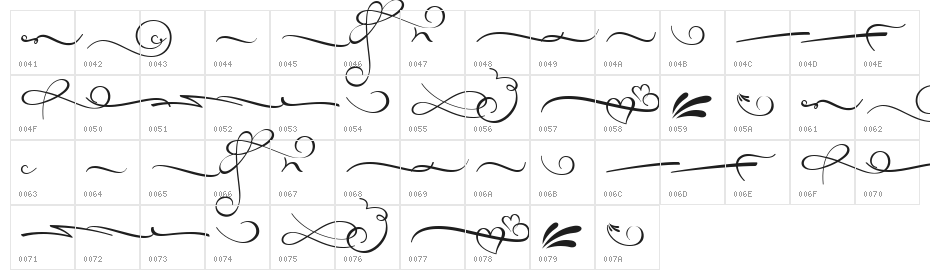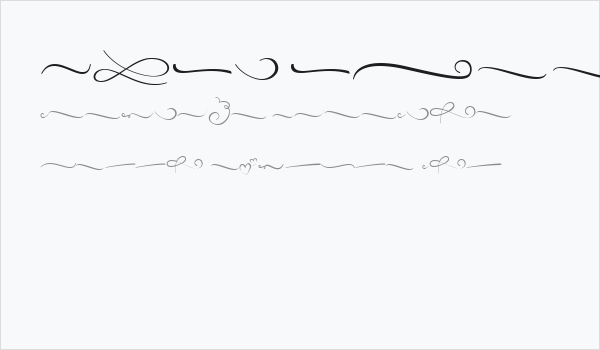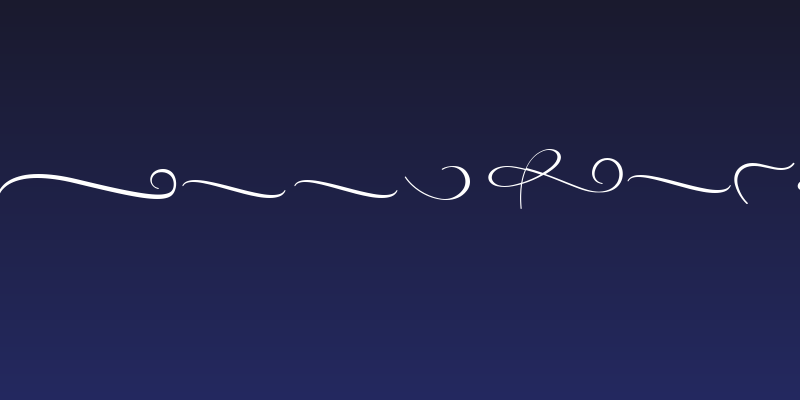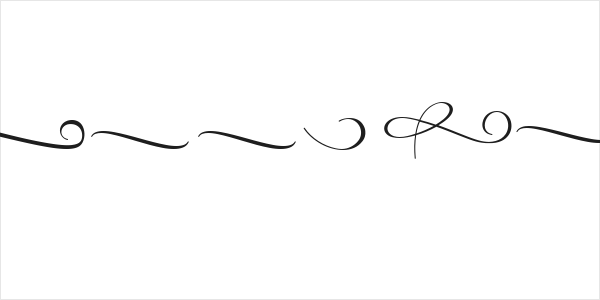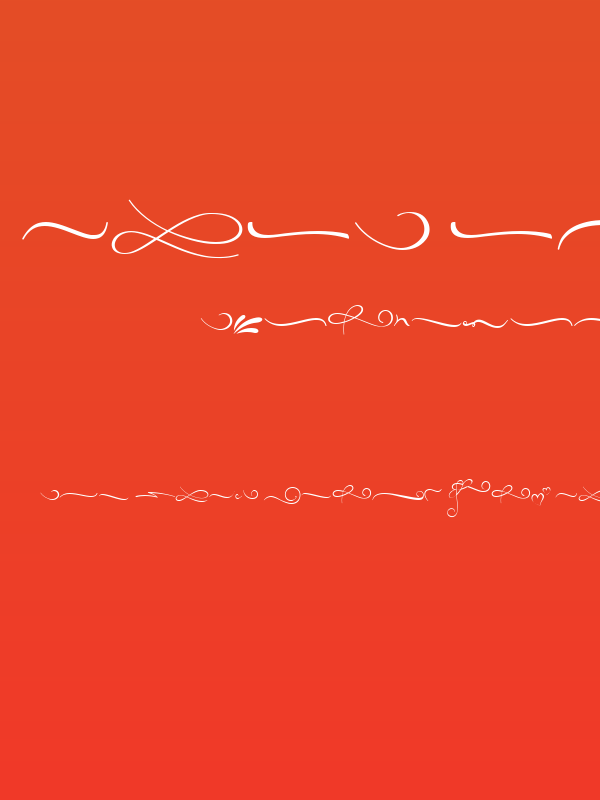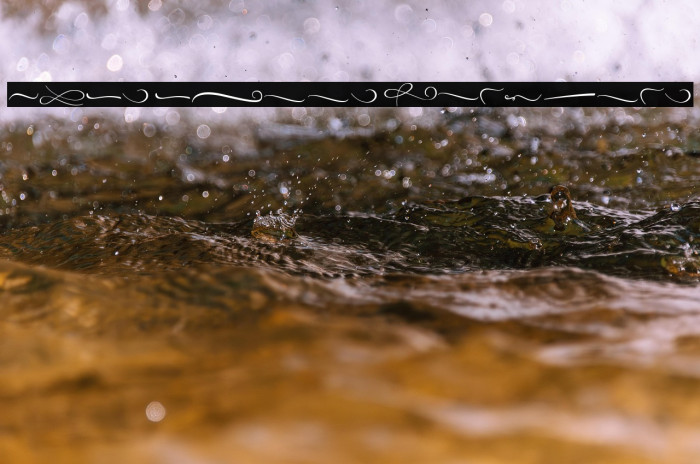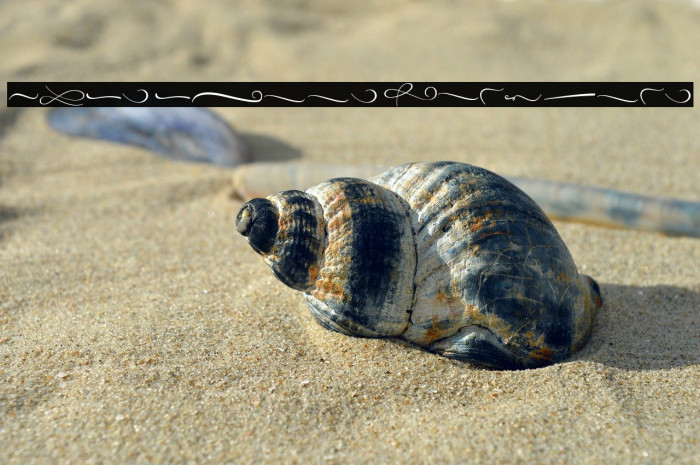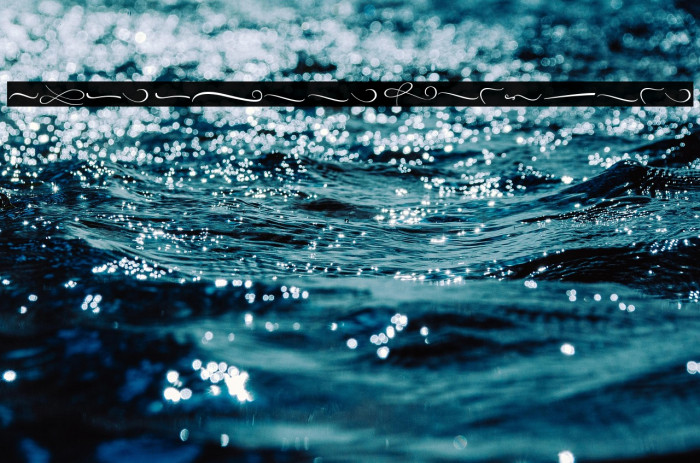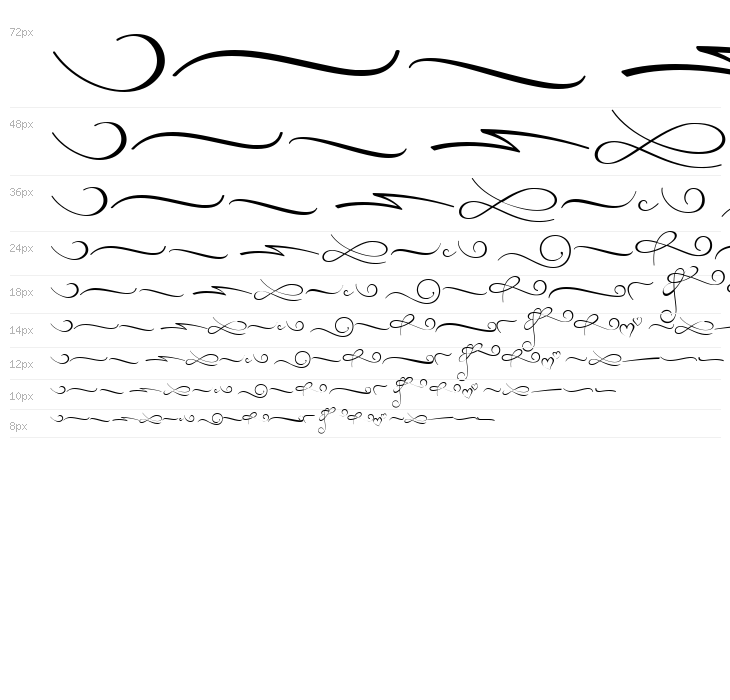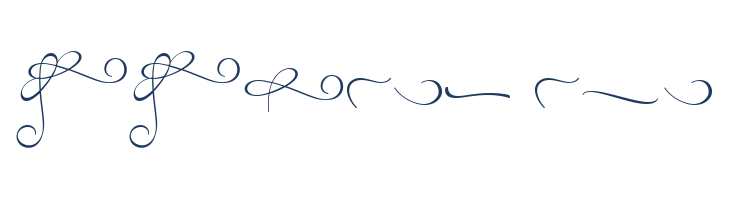
Just Sweet Ornament Font
Just Sweet Ornament Description
This design features a series of elegant, swirling ornaments that are perfect for adding a touch of sophistication and charm to any project. The intricate loops and curves create a sense of fluidity and grace, making it ideal for decorative purposes. The elements are balanced with a combination of thin and slightly thicker strokes, giving it a dynamic yet harmonious appearance. These ornaments can be used to embellish invitations, stationery, or any creative work that requires a delicate and refined touch.
| Use Case | Decorative elements, Invitations, Stationery |
| Proposed Projects | Ideal for wedding invitations, greeting cards, decorative borders, and elegant branding materials. |